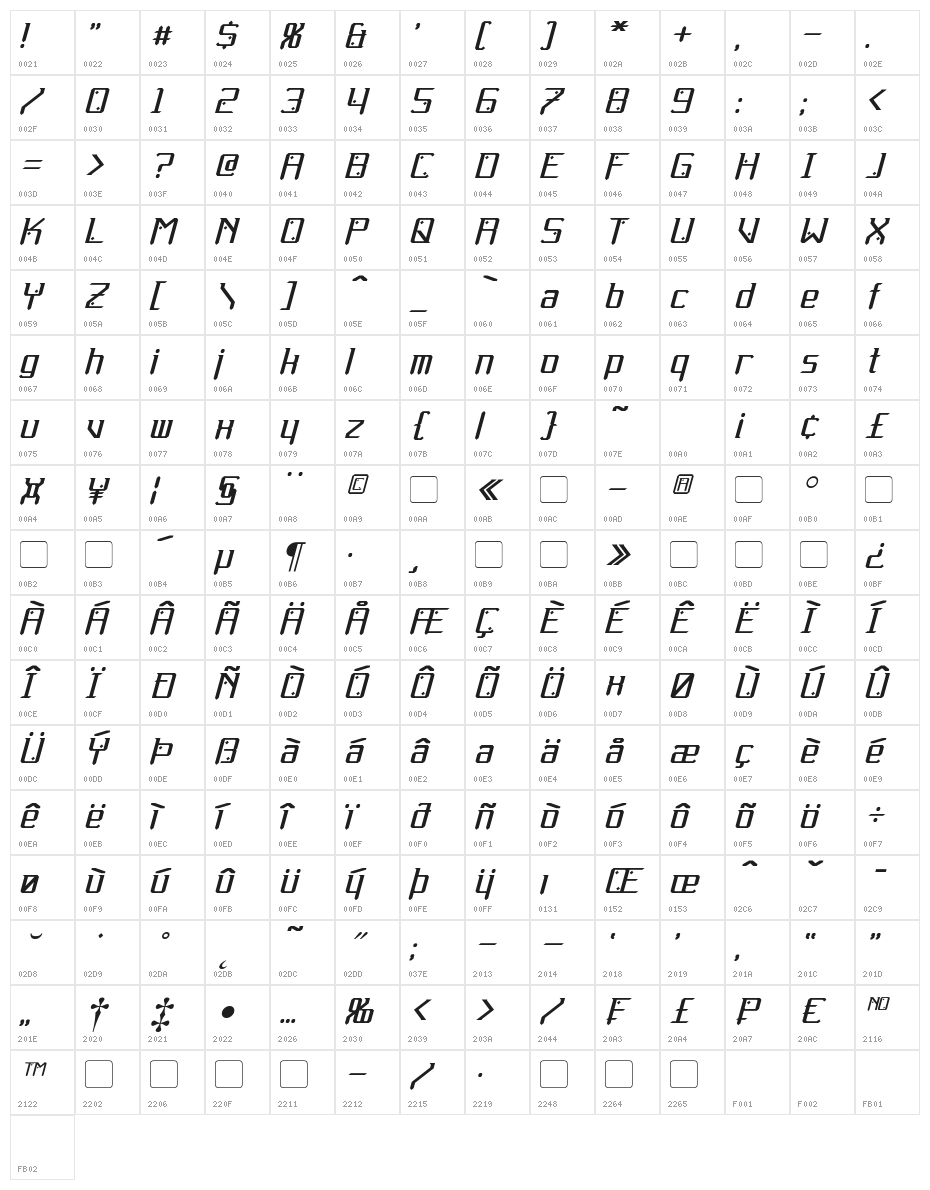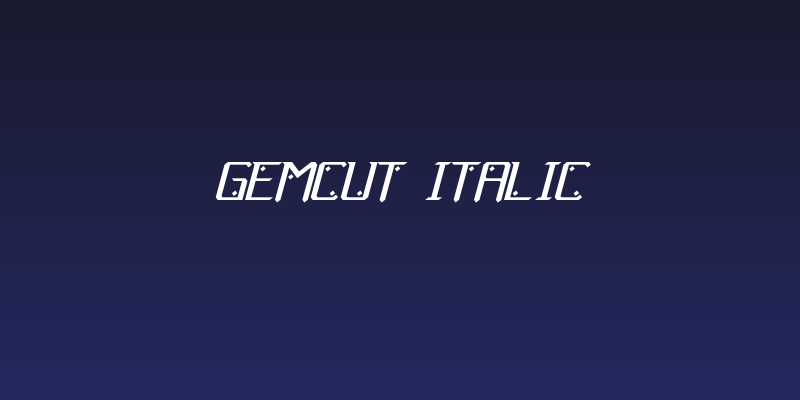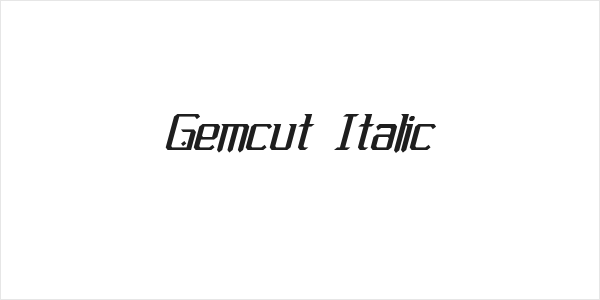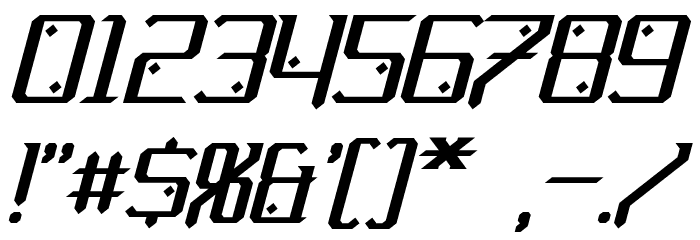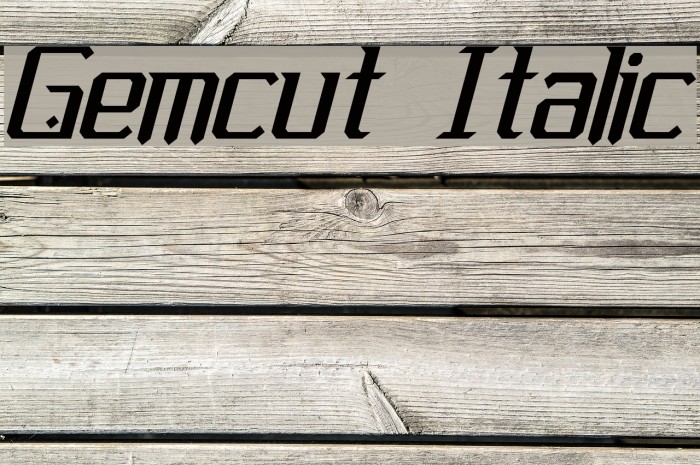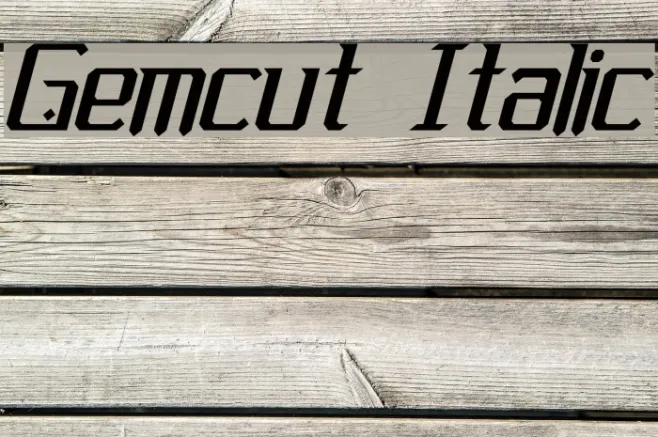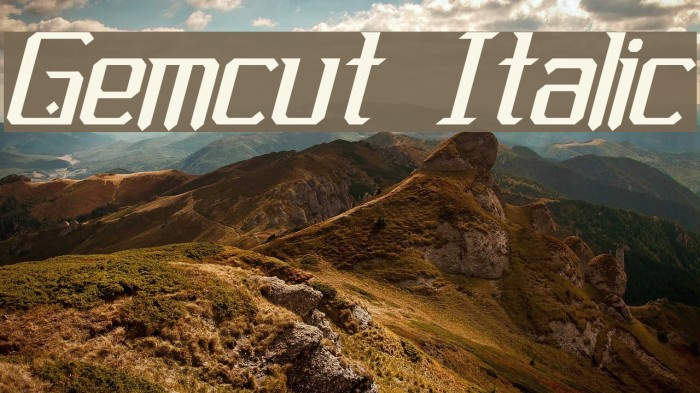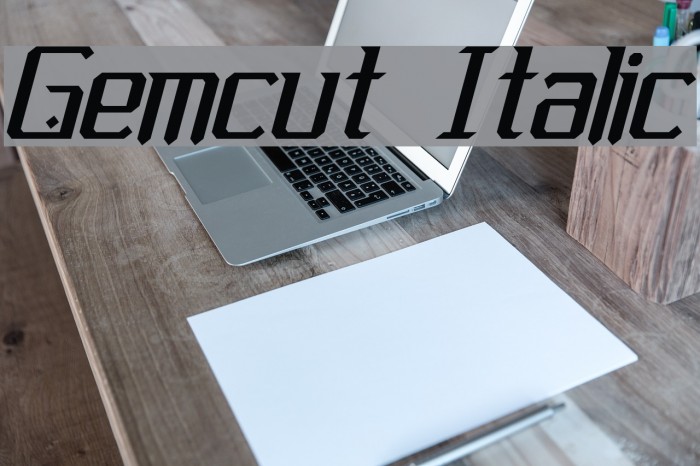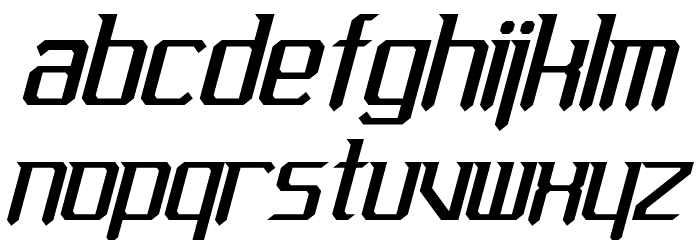
Gemcut Italic Font
Gemcut Italic Description
This font exhibits a unique, angular design with a distinct italic slant, giving it a dynamic and modern appearance. The characters are crafted with sharp edges and geometric shapes, reminiscent of cut gemstones, which adds a decorative flair. The uppercase and lowercase letters maintain a consistent style, with the lowercase slightly more condensed. Numbers and special characters follow the same angular theme, ensuring uniformity across the typeface. The font's bold strokes and high contrast make it stand out, suitable for eye-catching designs.
| Overall Style | Modern, Decorative |
| Use Case | Logos, Headlines, Posters |
| Proposed Projects | Ideal for branding, logos, posters, and any project requiring a bold, modern aesthetic. |